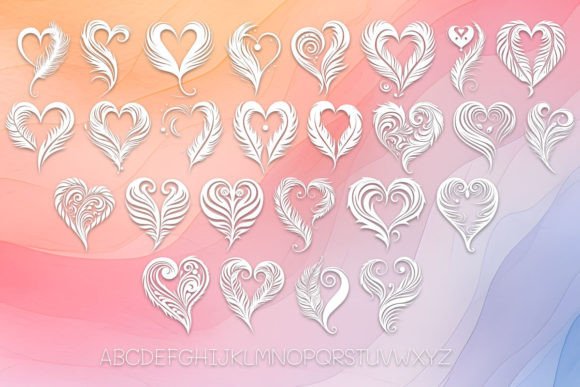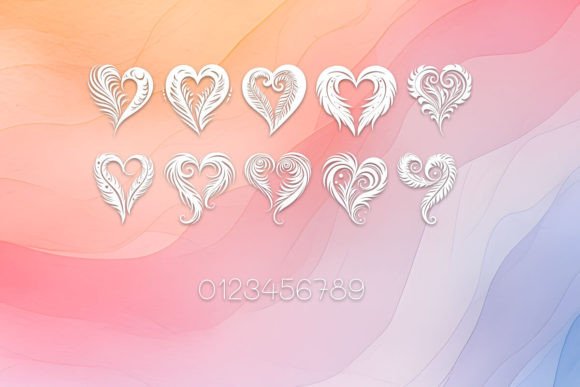
Maori Feathers Heart Font – Free Download
Introduction to Maori Feathers Heart Font
Introducing our captivating ‘Maori Feathers Heart’ Dingbats Fonts – a fusion of cultural elegance and heartfelt symbolism.
This digital collection offers 26 uppercase letters and a full set of numbers 0-9, each intricately designed with Maori-inspired feathers and heart motifs Infuse your designs with the rich heritage of Maori culture, adding a touch of emotional depth to your digital projects.
Key Features of Maori Feathers Heart Font
Why Choose Maori Feathers Heart Font?
Maori Feathers Heart Font offers exceptional quality and versatility, making it a valuable addition to your design toolkit. Whether you’re creating for personal projects or commercial use, Maori Feathers Heart Font delivers professional results.